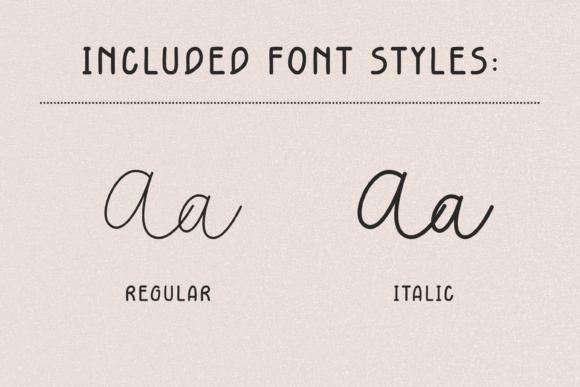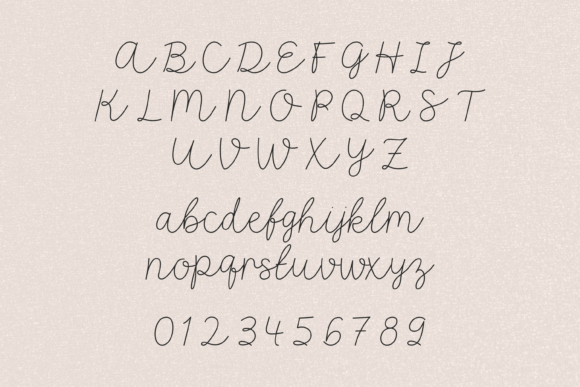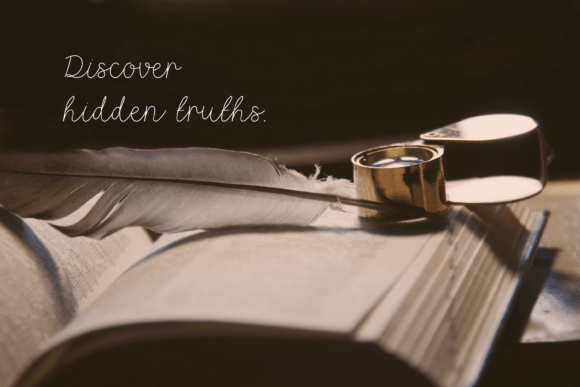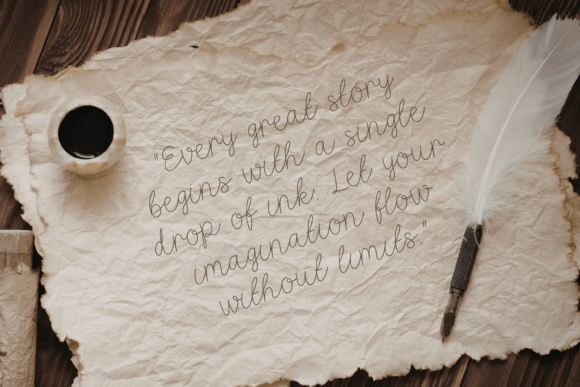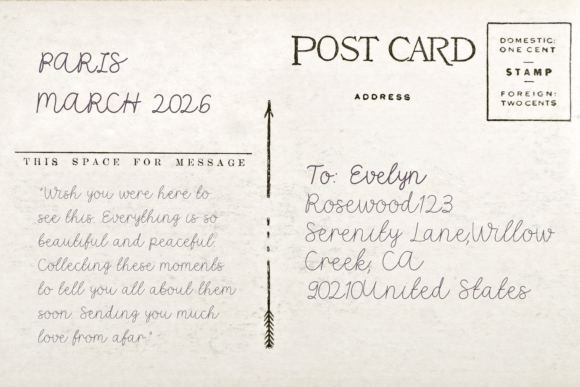
Introduction to Smoothink Font Font
Fonts play a crucial role in design, and the Smoothink Font font is a typeface that brings both character and versatility to any project. Whether you’re working on a branding project, a website, or a print design, the Smoothink Font font offers a unique style that can elevate your work.
β¨ SmoothInk β Handwritten Script Font Add a natural handwritten touch to your creative projects with SmoothInk, a stylish and elegant script font designed to bring warmth and personality to your designs.
Its smooth flowing strokes make it perfect for branding, invitations, social media graphics, and more Whether youβre designing a logo, wedding invitation, or quote art, SmoothInk delivers a beautiful handwritten aesthetic that feels both modern and timeless.
Key Features of Smoothink Font Font
Why Choose Smoothink Font Font?
The Smoothink Font font is more than just a typeface β it’s a design tool that helps you communicate your message with style and clarity. Its unique character set and versatile design make it suitable for a wide range of applications, from elegant invitations to bold headlines.
With its carefully crafted letterforms and balanced proportions, the Smoothink Font font ensures readability and visual appeal across all mediums.
What makes Smoothink Font font special?
The Smoothink Font font stands out with its unique design, exceptional readability, and versatility across various design applications.